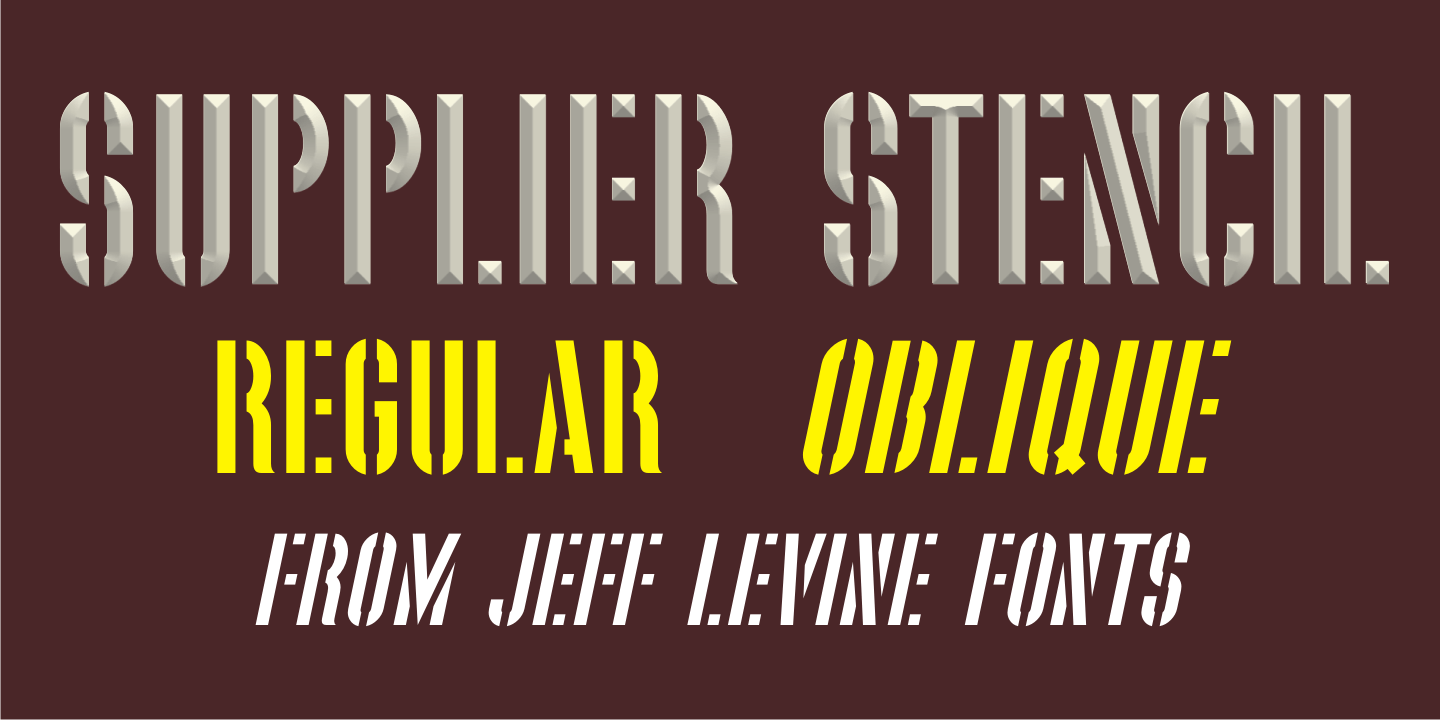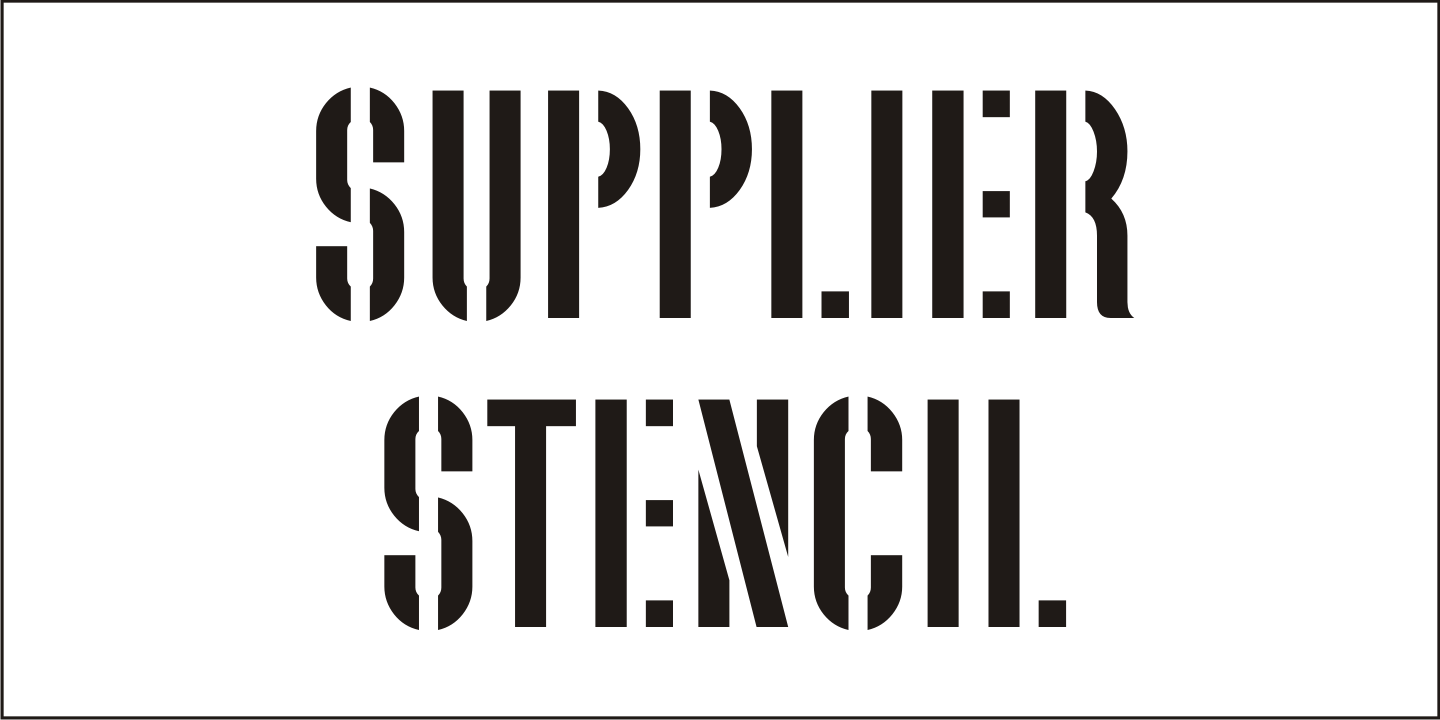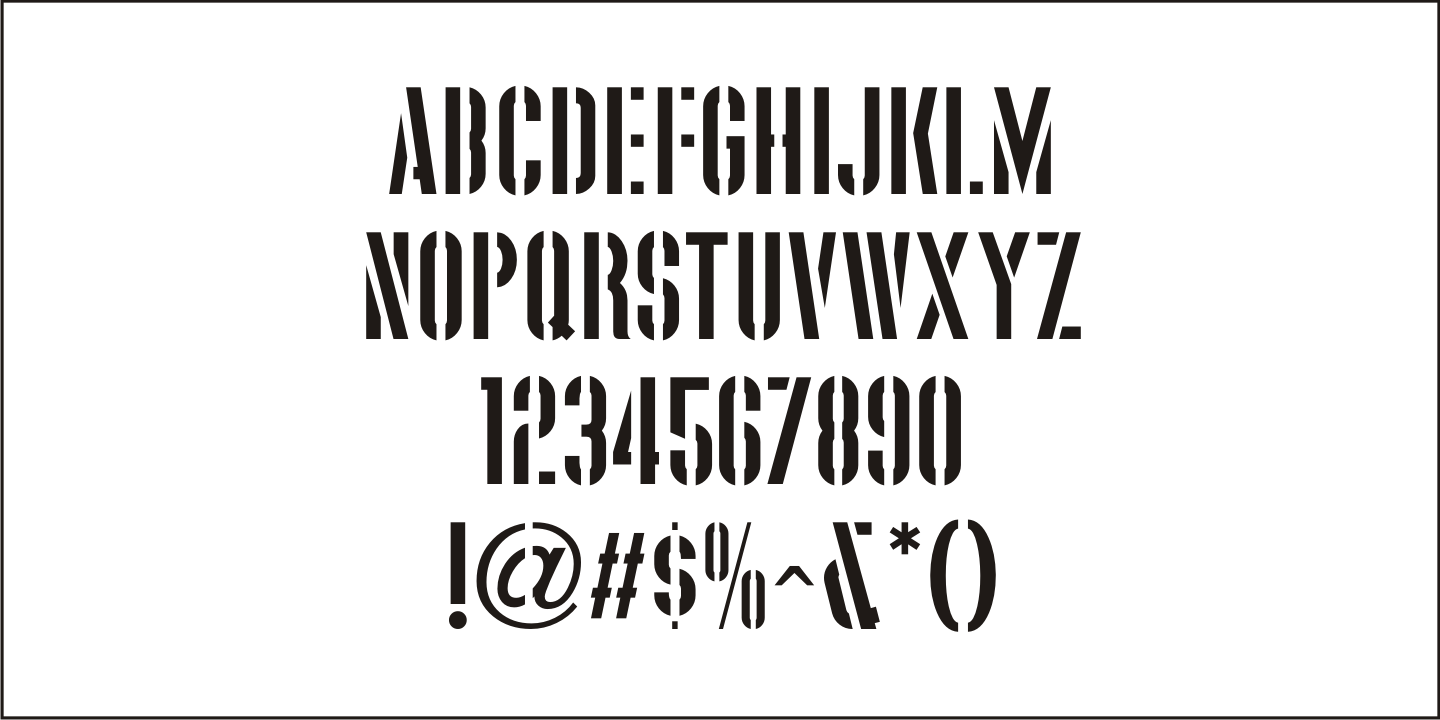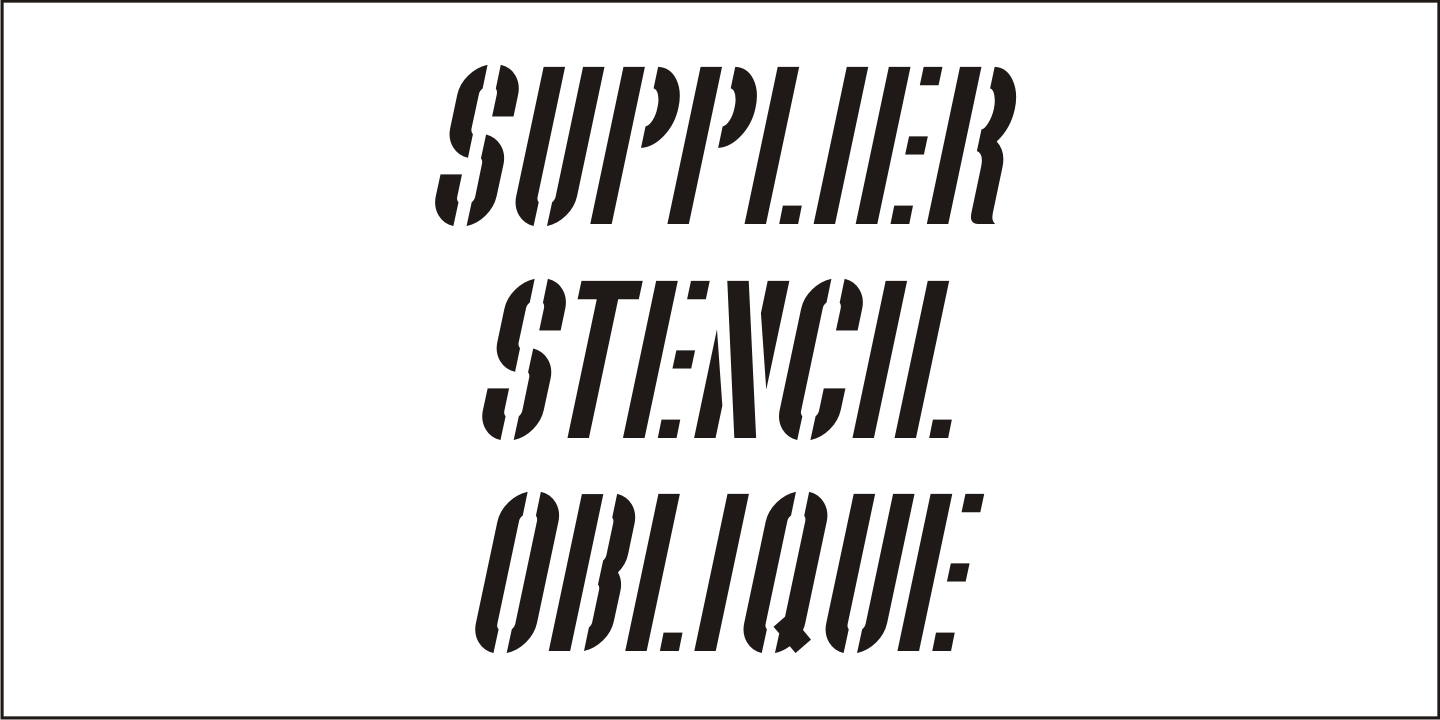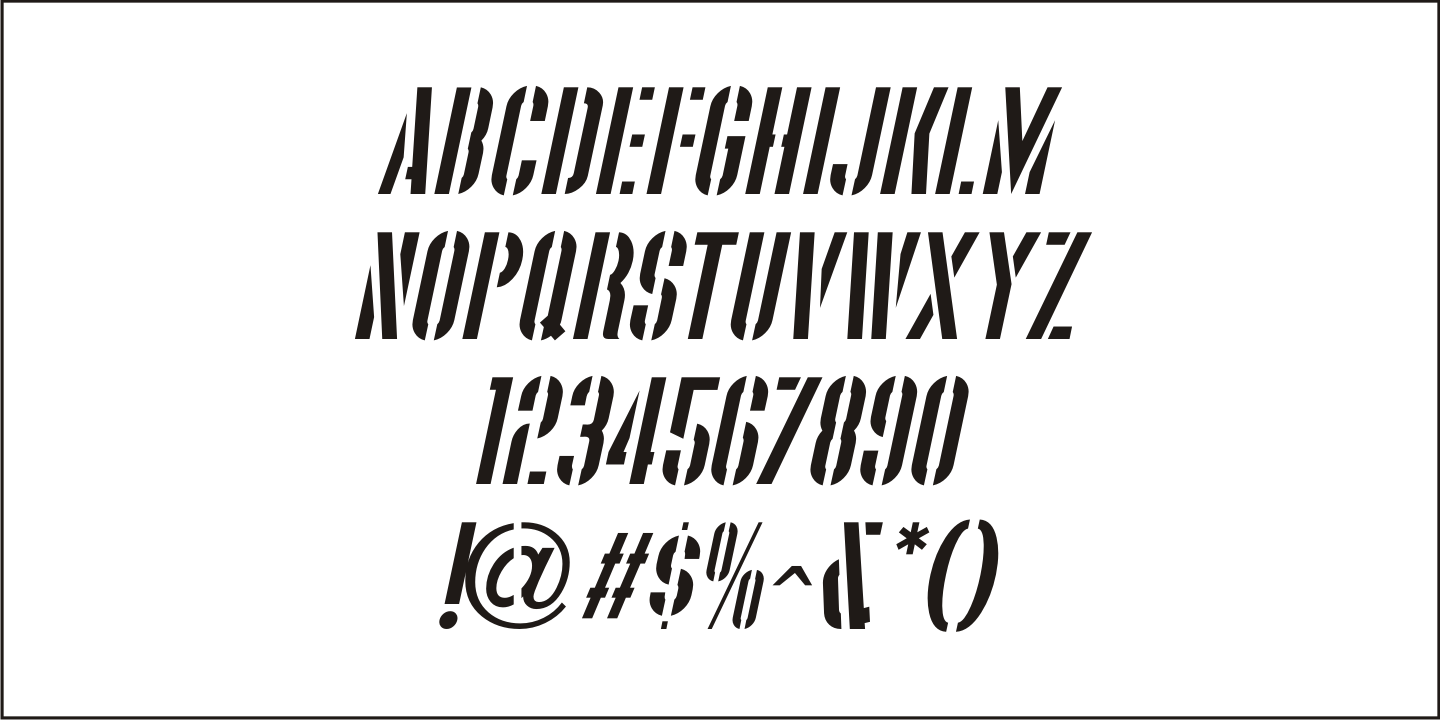
Supplier Stencil
The design idea for this condensed sans serif stencil font was inspired by a post-World War II brass stencil spotted in an online auction.
The United States was assisting Europe with much-needed goods, and the text in the middle of a 'stars and stripes' shield used for marking the shipping containers read 'For European Recovery supplied by the United States of America'.
It was the first line ('For European Recovery') that became the working model for Supplier Stencil JNL, which is available in both regular and oblique versions.